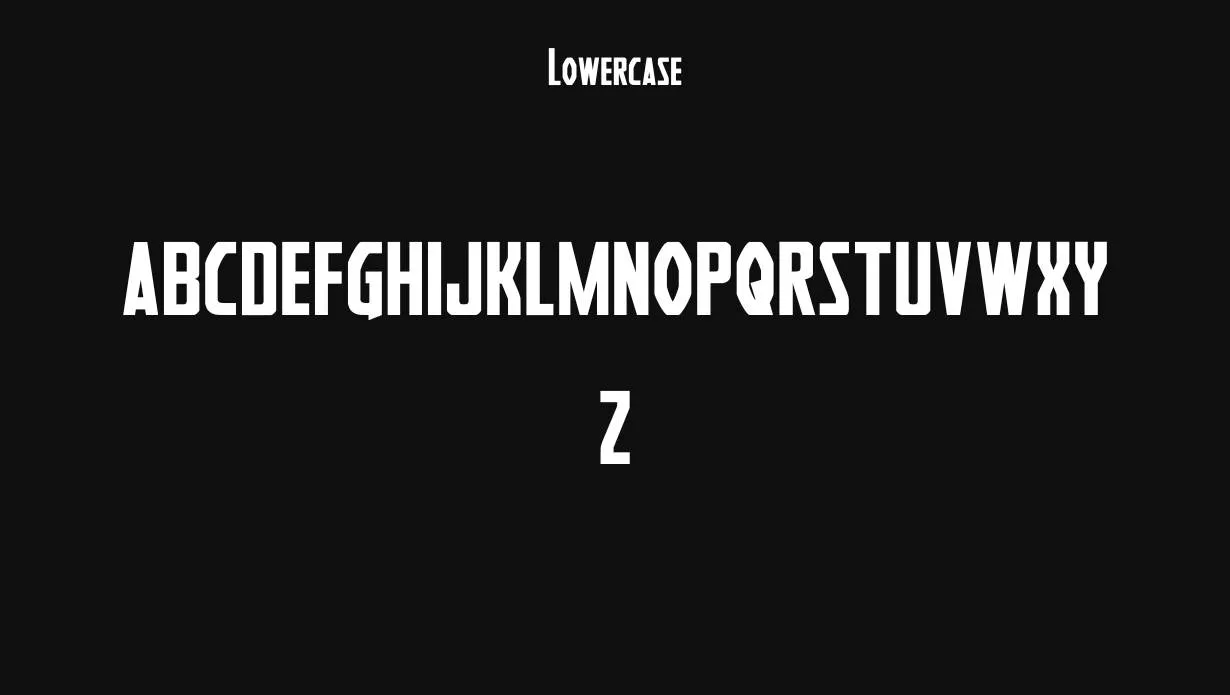
Heroes Assemble Font is inspired by the typography associated with superhero comics and is often used in projects related to comic books, gaming, and creative designs that aim to evoke a sense of adventure and heroism.
The font adds an element of action and excitement to your design work.
| Name | Heroes Assemble Font |
| Designer | Iconian Fonts |